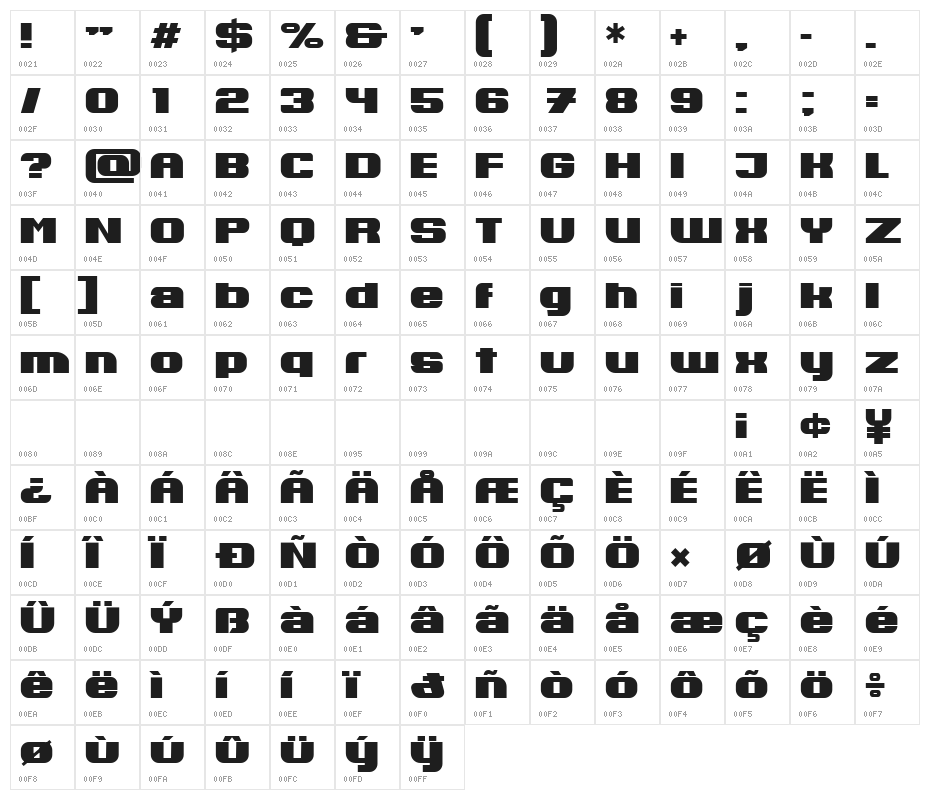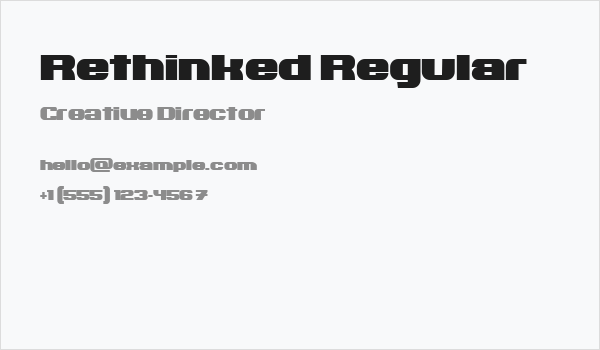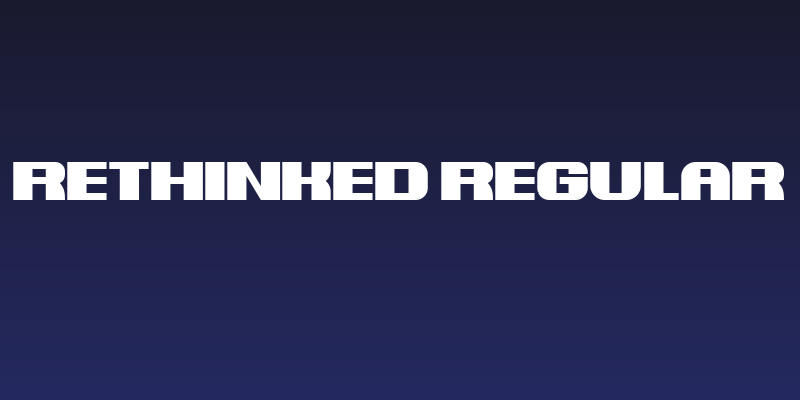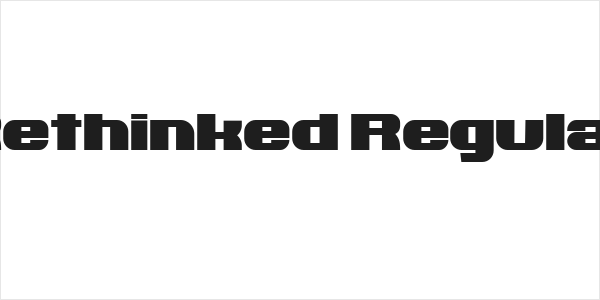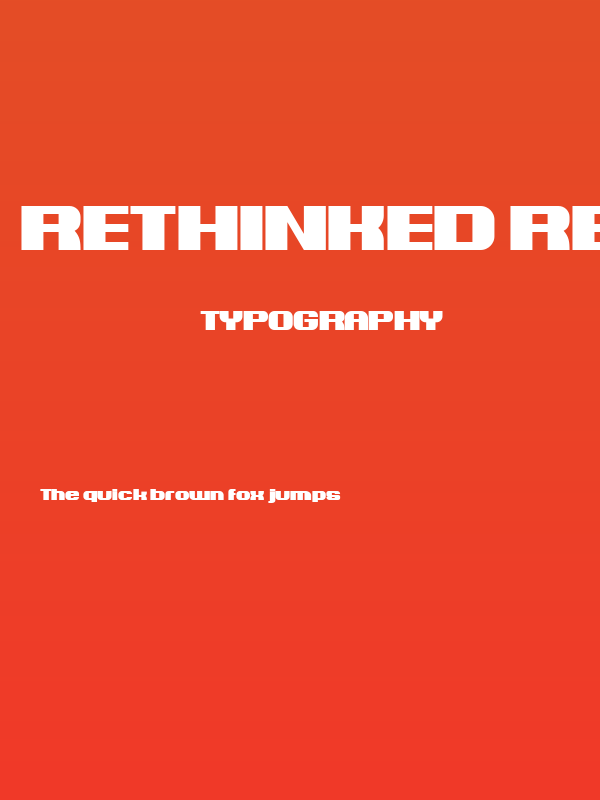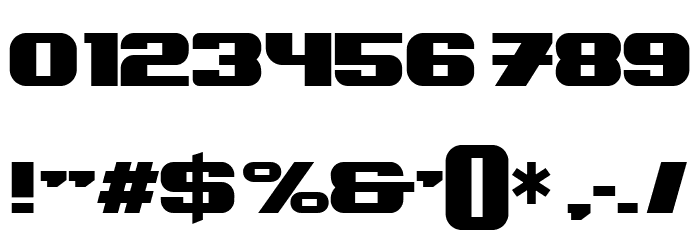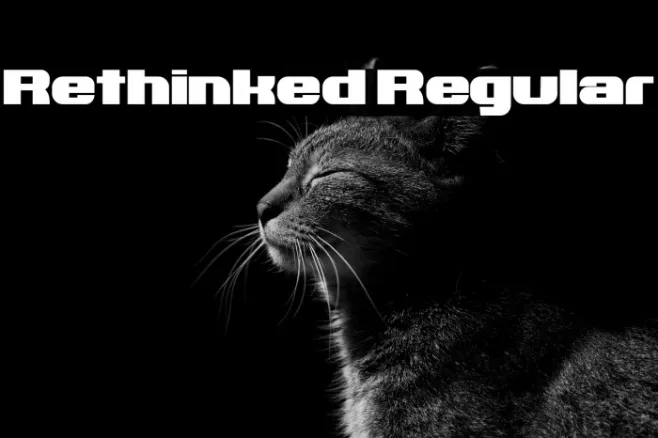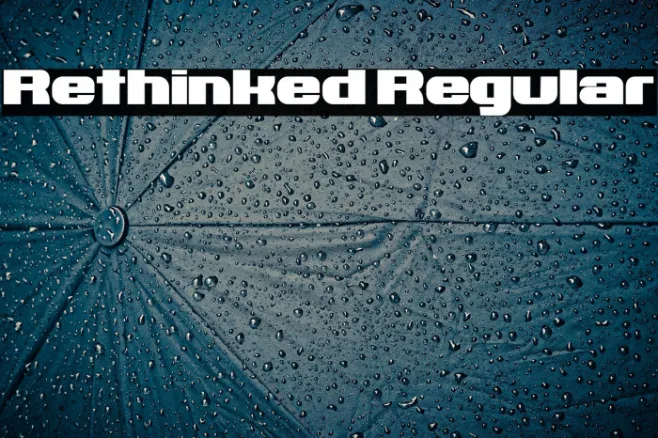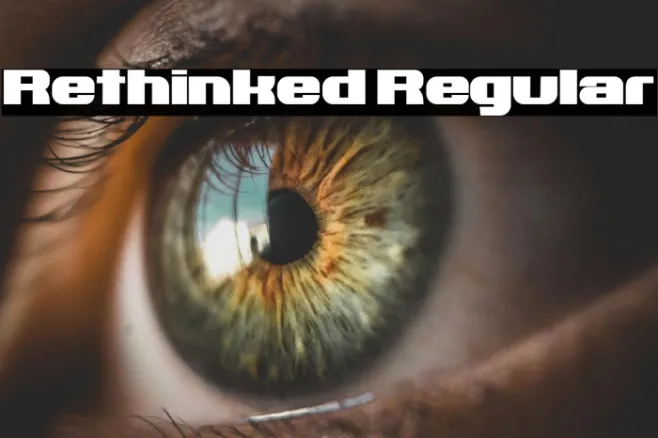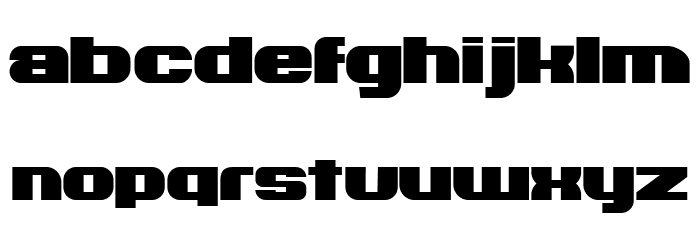
Rethinked Regular Font
Rethinked Regular Description
This font features a bold and impactful design with strong geometric shapes and a modern aesthetic. The uppercase and lowercase letters maintain a consistent width, creating a uniform appearance. The characters are wide and have a substantial presence, making them ideal for attention-grabbing headlines or titles. The numbers and special characters follow the same bold style, ensuring consistency across all text elements. The font's design is clean and straightforward, with minimal decorative elements, focusing on readability and impact.
| Proposed Projects | Ideal for branding, posters, headlines, and any project requiring a strong visual impact. |